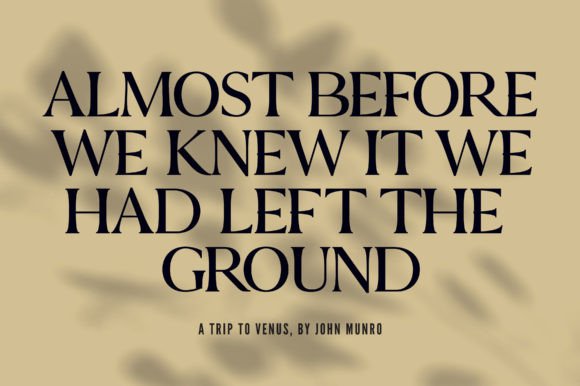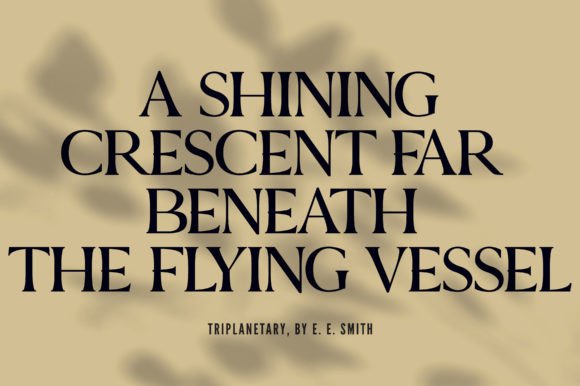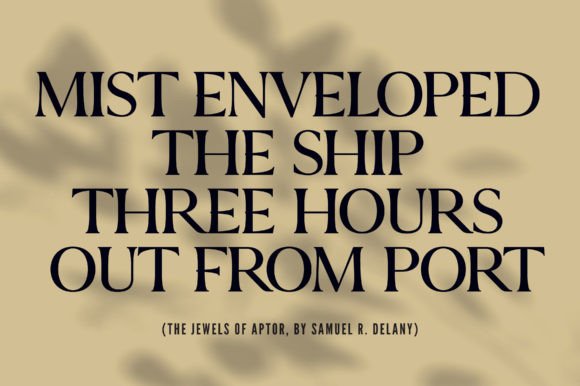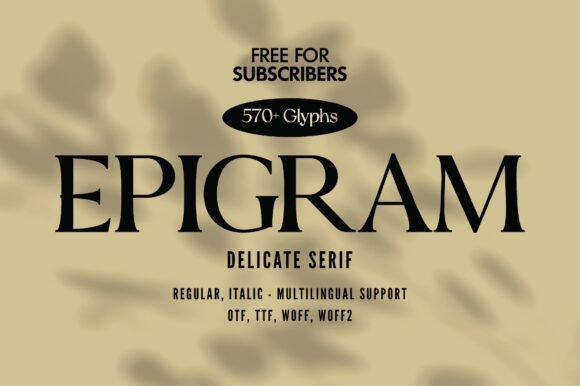
Introducing Epigram Font: Elevate Your Designs with Elegance and Sophistication
In the world of design, typography plays a crucial role in conveying the tone and personality of a brand or project. A well-crafted font can elevate your designs, making them more engaging, sophisticated, and memorable. This is where Epigram Font comes in – a modern serif font designed to bring your designs to life with its elegant, chic, and minimalist aesthetic.
Meticulously Crafted with Attention to Detail
Epigram Font is the result of meticulous craftsmanship, with over 570 carefully designed glyphs that ensure versatility and flexibility. Whether you’re working on a branding project, editorial design, or marketing campaign, this font is perfect for any creative endeavor. Its extensive glyph set includes accents, ligatures, and alternate characters, giving you the freedom to experiment and create unique designs that stand out.
Sleek, Minimalist, and Sophisticated
The design of Epigram Font exudes sophistication, making it perfect for modern designs that demand attention. The sharp and clean lines of the font create a sense of order and balance, while the serifs add a touch of elegance and refinement. This font is ideal for designers who want to create a lasting impression, whether it’s for a website, book cover, or marketing campaign.
Full Multilingual Support
In today’s globalized world, designers often work on projects that require support for multiple languages. Epigram Font comes with full multilingual support, making it perfect for projects that demand a wide range of linguistic flexibility. With this font, you can create designs that cater to diverse audiences, without worrying about language limitations.
Epigram Font is an incredibly versatile font that can be used for a wide range of design projects, including:
- Branding: Create a lasting impression with a font that exudes sophistication and elegance.
- Editorial Design: Elevate your publications with a font that is both stylish and readable.
- Marketing Campaigns: Make your marketing materials stand out with a font that demands attention.
- Web Design: Create a website that is both modern and sophisticated with Epigram Font.
- Book Covers: Design a book cover that is both eye-catching and elegant.
Why Choose Epigram Font?
With so many fonts available, why choose Epigram Font? Here are just a few reasons:
- Elegant and Chic: Epigram Font is designed to bring a touch of sophistication and style to your designs.
- Versatile: With over 570 glyphs, this font is perfect for a wide range of design projects.
- Multilingual Support: Create designs that cater to diverse audiences with full multilingual support.
- High-Quality: Epigram Font is crafted with attention to detail, ensuring a high-quality design that will elevate your projects.
In conclusion, Epigram Font is an exceptional modern serif font that is perfect for designers and crafters looking to elevate their designs with elegance and sophistication. With its meticulously crafted glyphs, sleek and minimalist design, and full multilingual support, this font is versatile enough to use for any project. Whether you’re designing a website, book cover, or marketing campaign, Epigram Font is the perfect choice to add a touch of style and sophistication to your work.